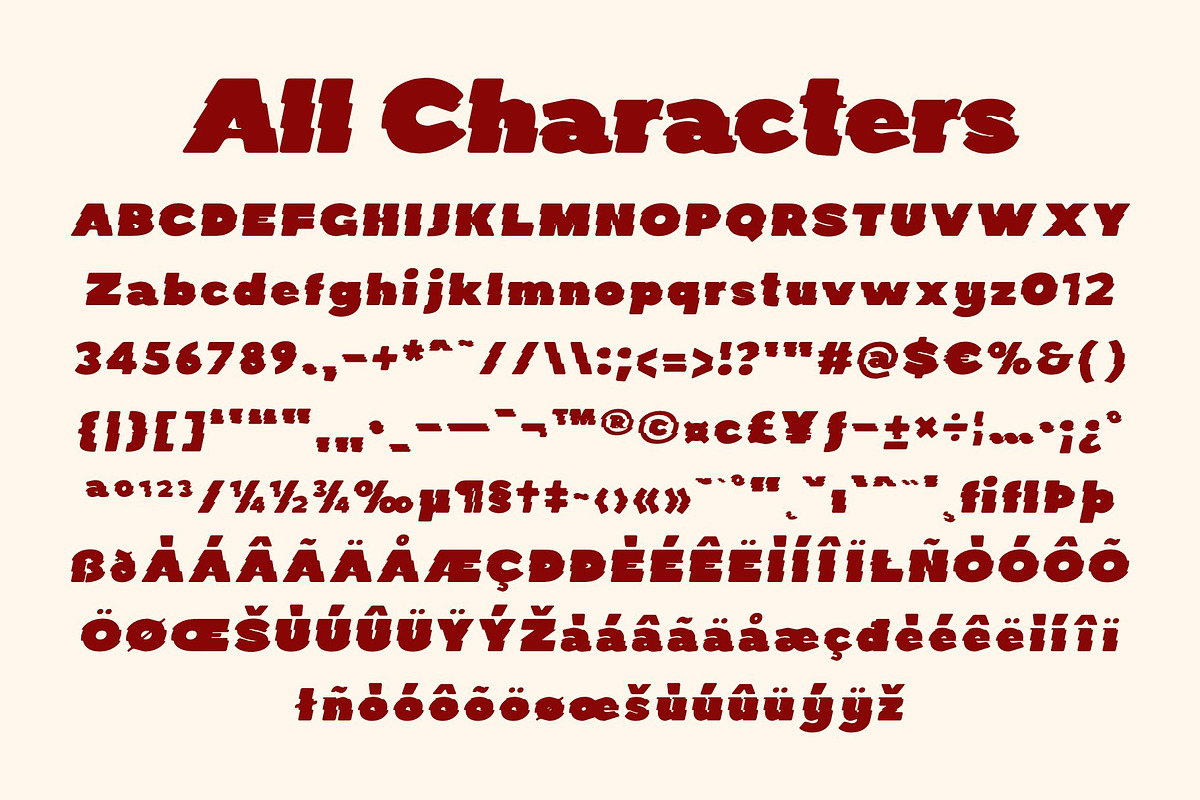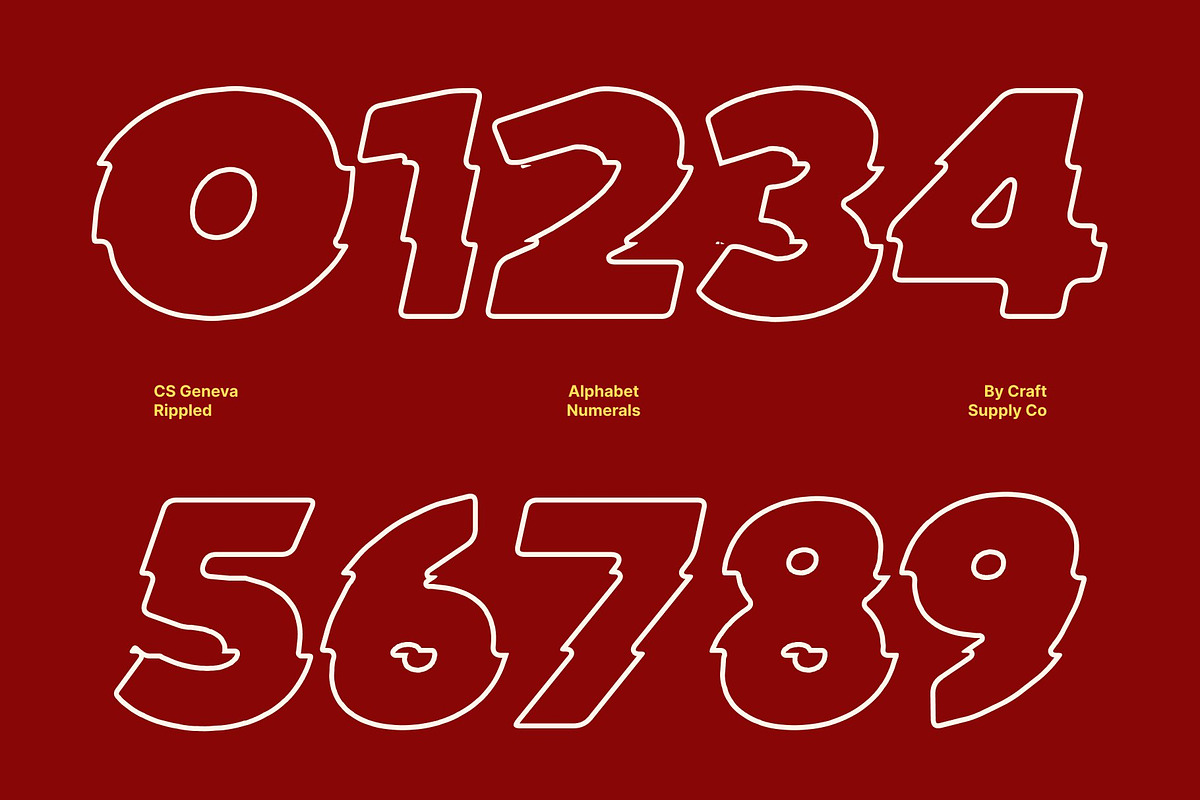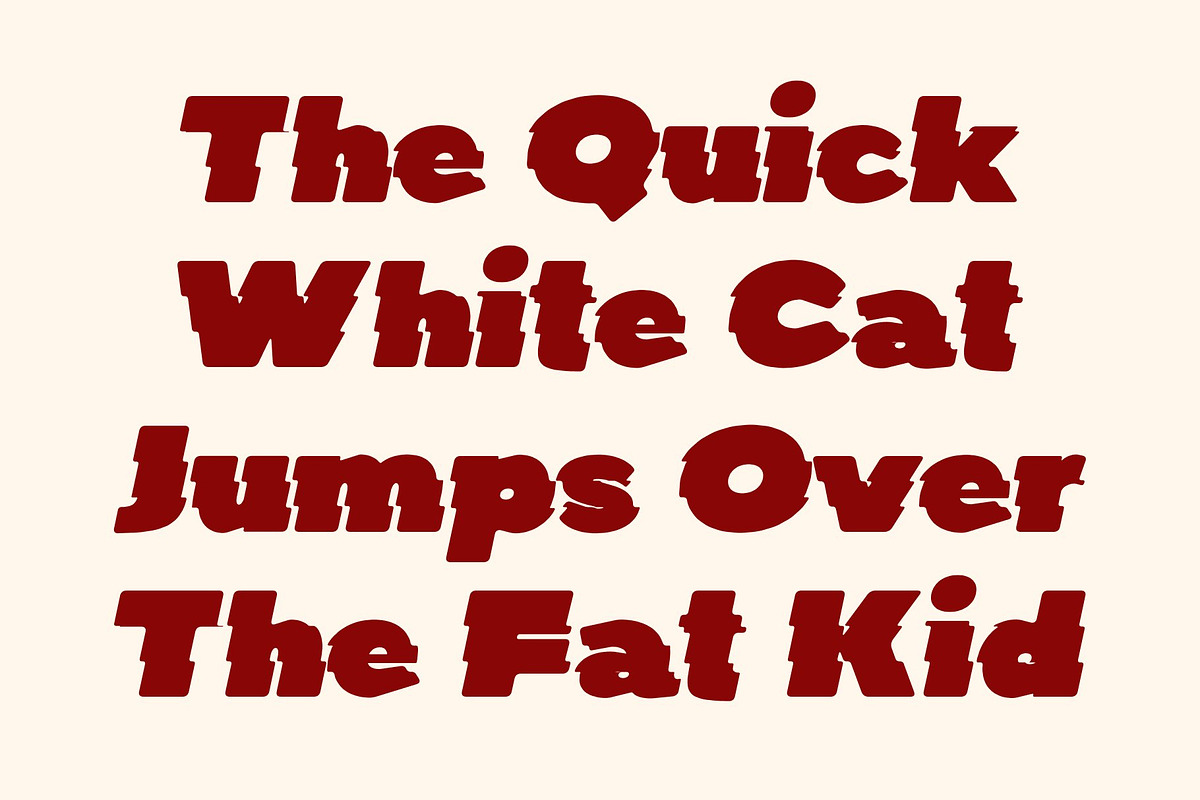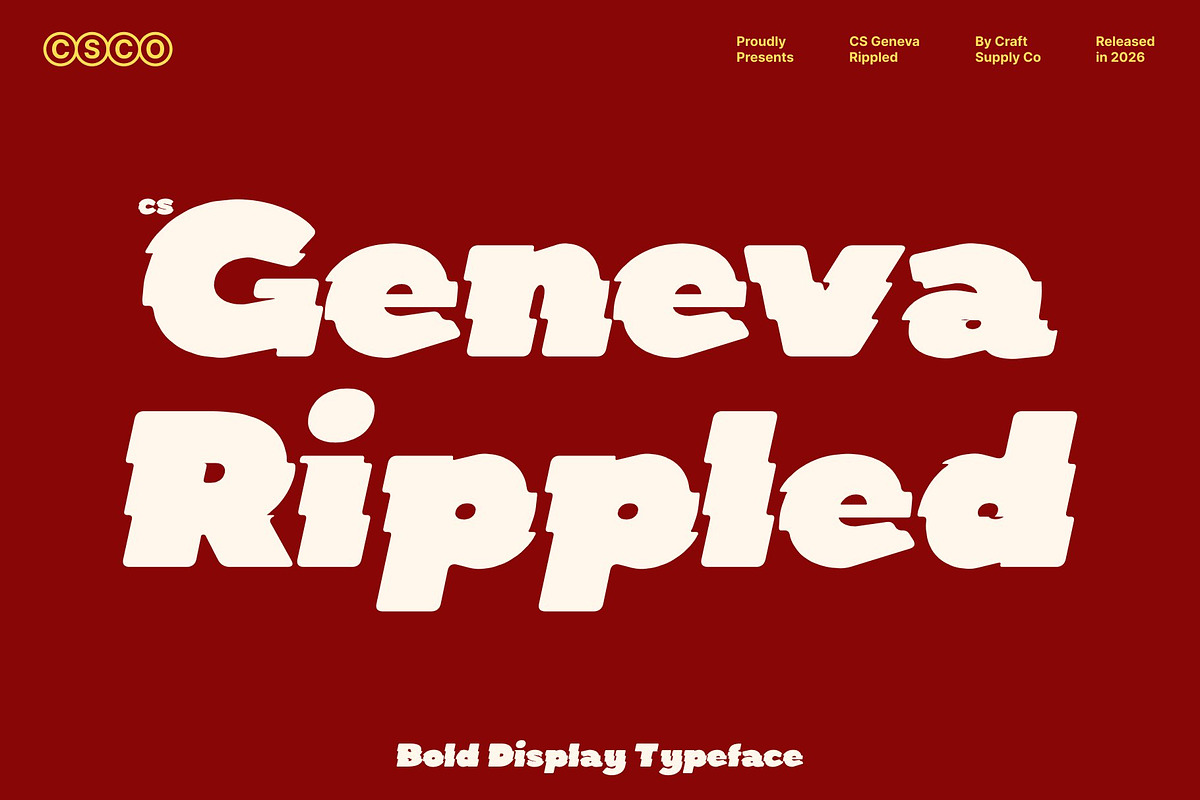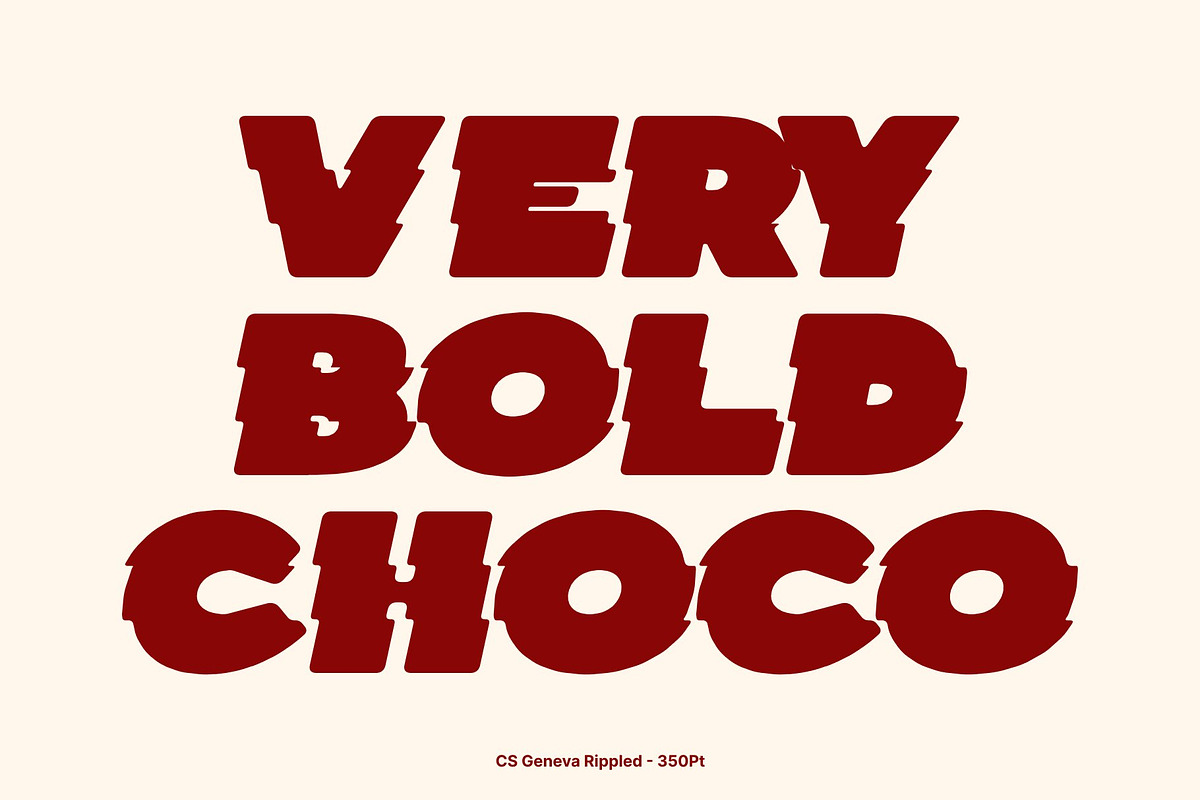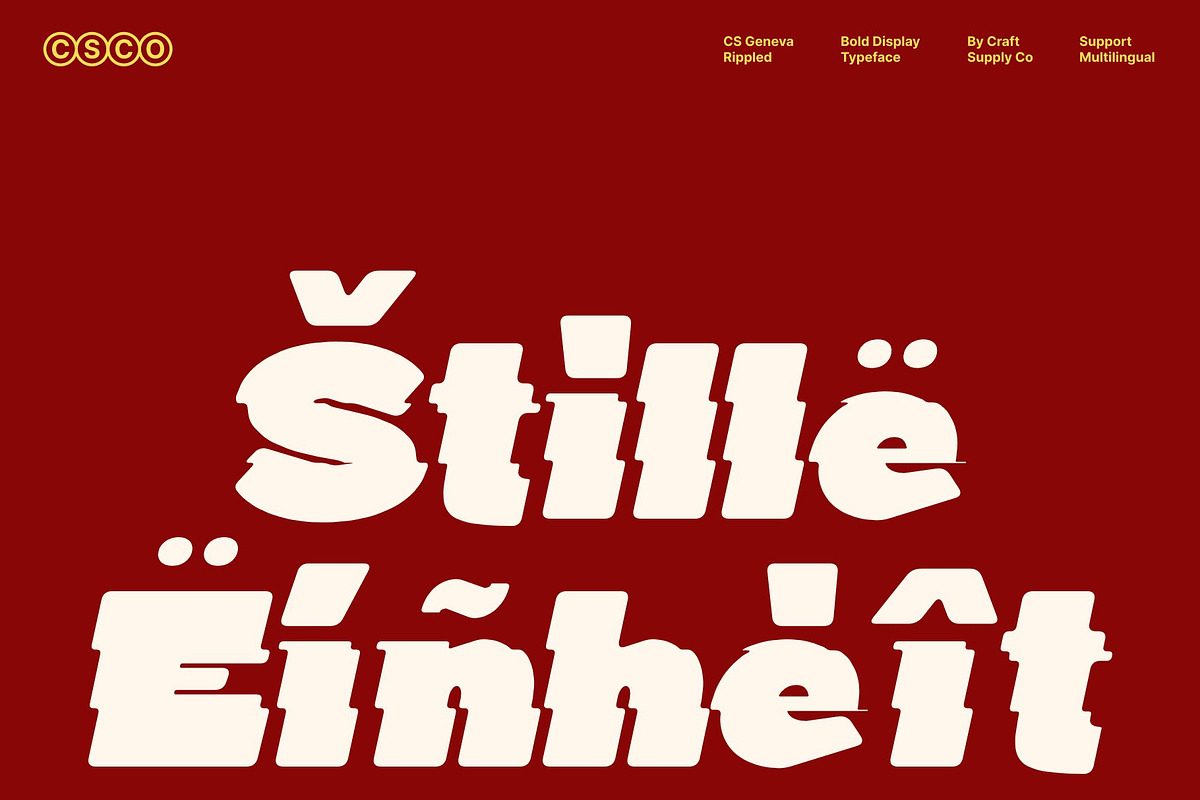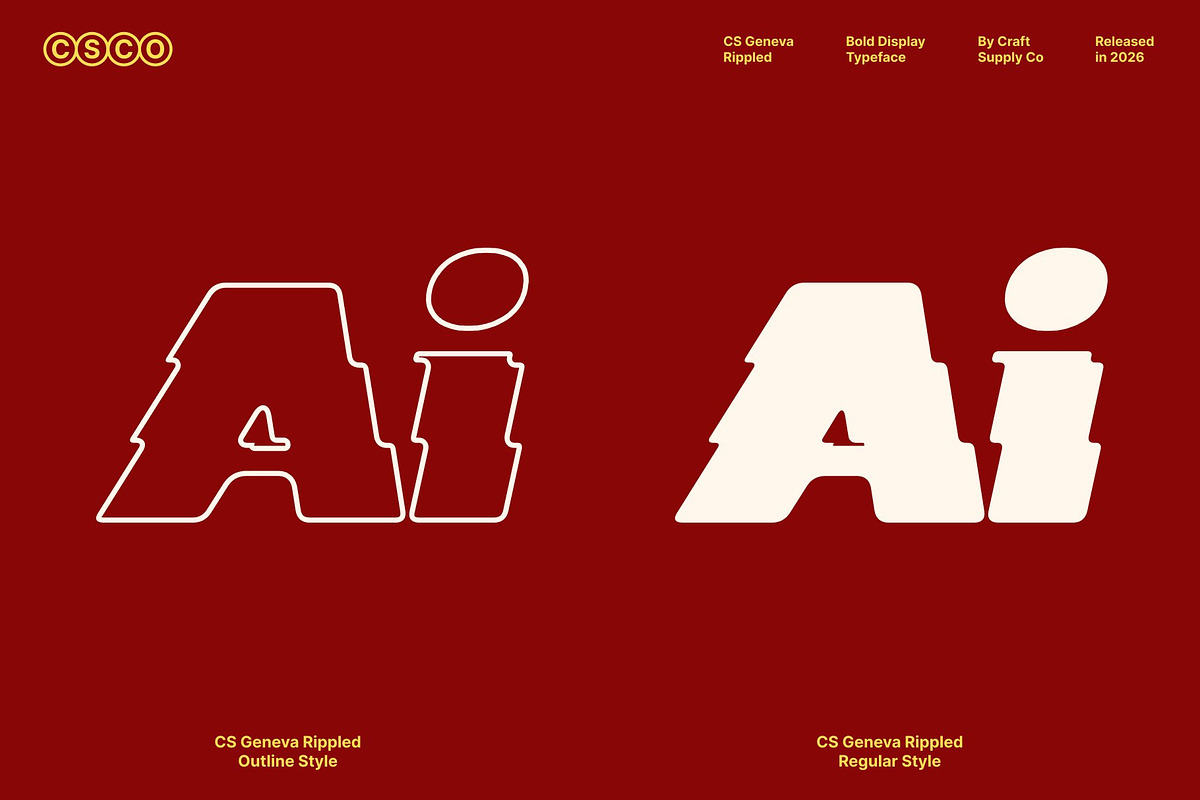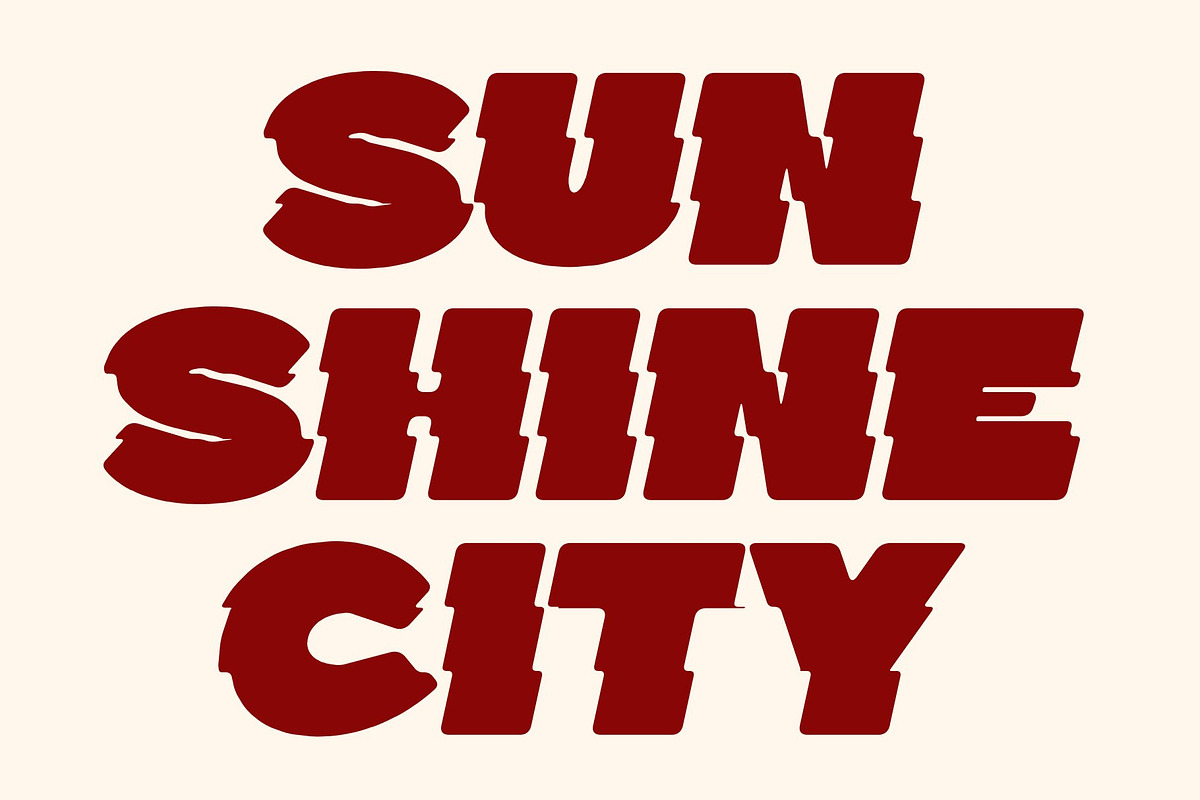
CS Geneva Rippled
CS Geneva Rippled – Bold Sans Serif Font with Cool Modern Liquid Expression
Striking Shapes with Confident Presence This is a bold sans serif display font designed to deliver a strong and unmistakable visual statement. Built with thick strokes, modern geometric structure, and clean construction, it instantly commands attention in any layout. Every letterform is carefully crafted to feel solid, expressive, and intentional, resulting in a typeface that radiates confidence, style, and contemporary strength.
Perfect for High-Impact Headlines Designed for visual dominance, this font excels in headline-driven compositions where clarity and impact are essential. Its heavy weight and precise geometry ensure excellent readability even at large scales, making it ideal for posters, banners, magazine titles, and hero sections in digital design.
A Strong Choice for Modern Branding This font is an excellent choice for brands seeking a cool, confident, and forward-thinking identity. Its bold geometric forms give logos, packaging, and visual systems a polished and decisive character. The combination of strength and modern simplicity communicates reliability and sophistication, while still maintaining a stylish and expressive edge.
Rippled Effect for Cool Fluid Motion The signature rippled distortion adds a dynamic water-reflection effect that introduces motion, depth, and atmospheric energy into the design. Inspired by flowing waves and liquid surfaces, this effect transforms static typography into a visually engaging experience. It is especially suitable for music visuals, festival posters, digital campaigns, fashion branding, and modern editorial layouts.
CS Geneva Rippled Regular
CS Geneva Rippled Outline